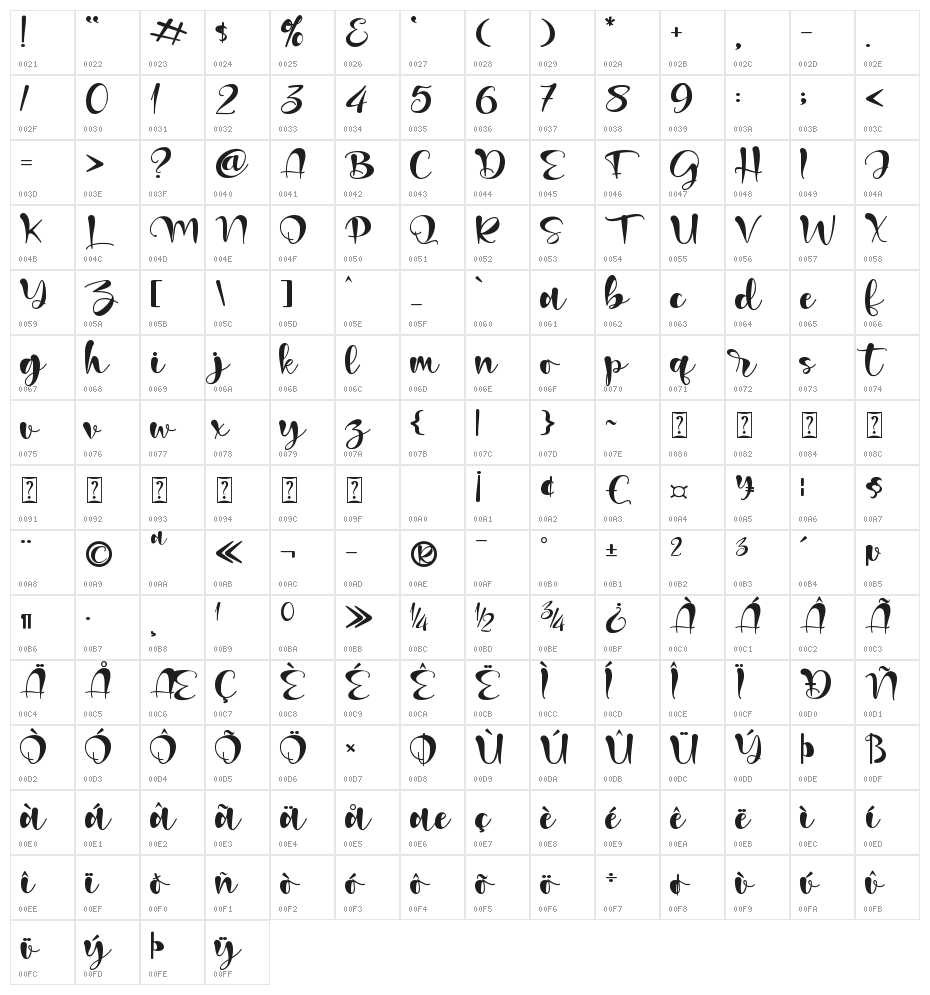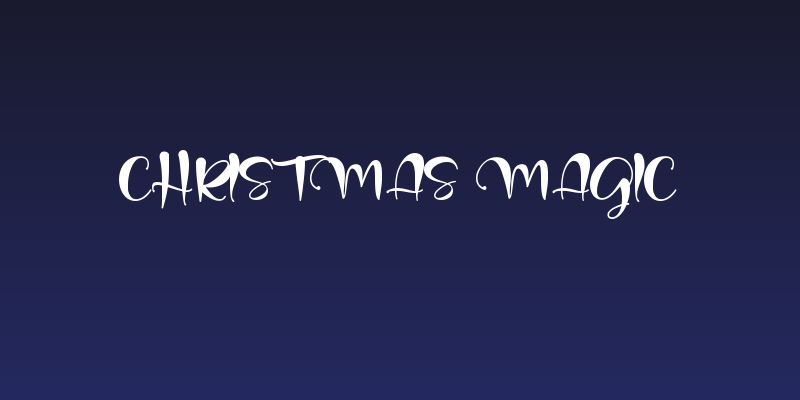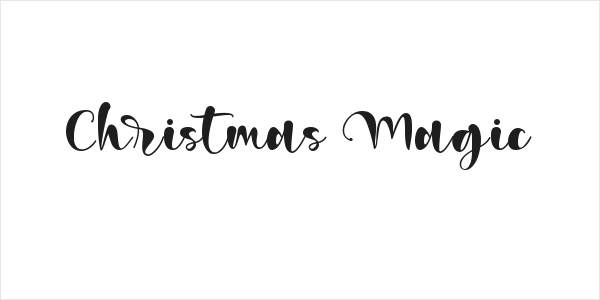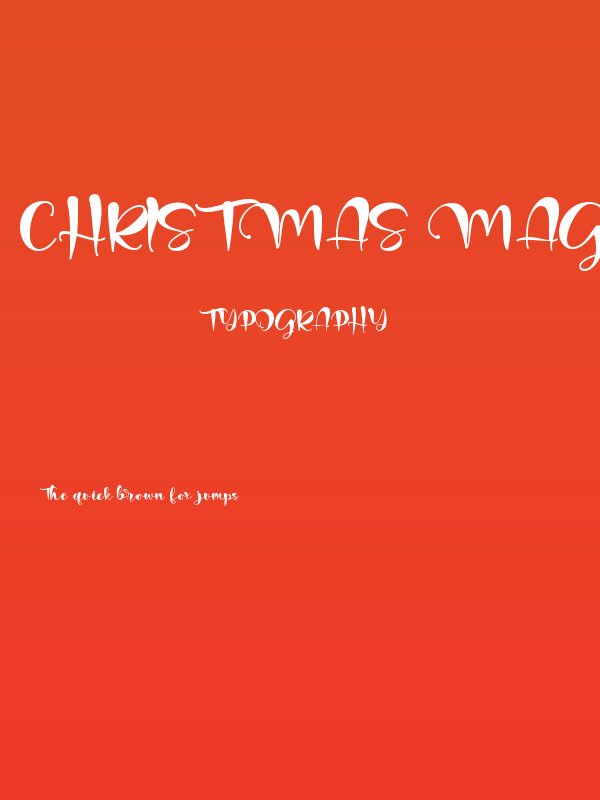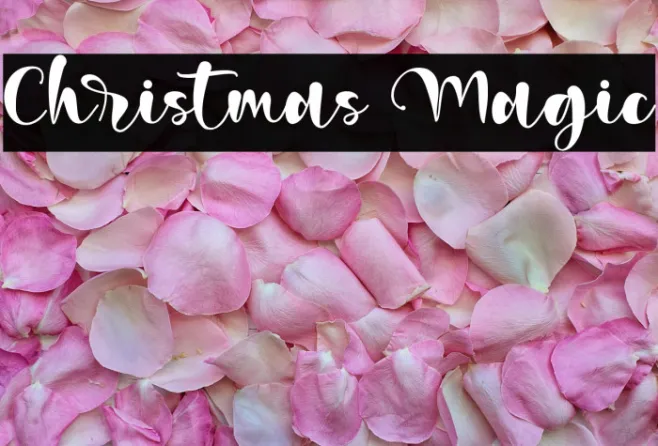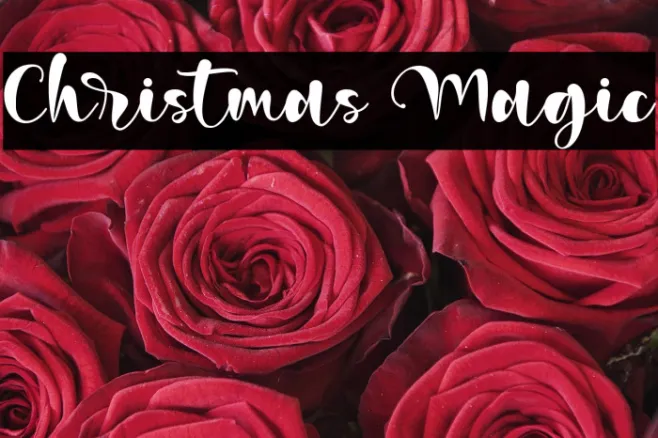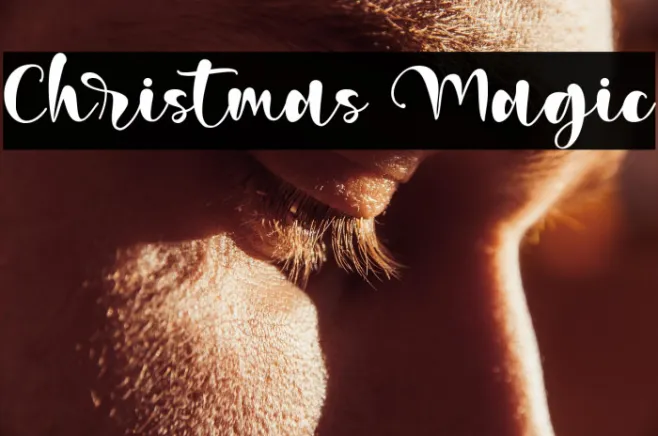
Christmas Magic Font
Christmas Magic Description
This font features a whimsical and festive style, characterized by its flowing, cursive script that evokes a sense of holiday cheer. The letters are elegantly crafted with a playful touch, incorporating swirls and loops that add to its decorative appeal. The uppercase letters are bold and prominent, while the lowercase letters maintain a consistent flow, enhancing readability. Numbers and special characters are designed with the same festive flair, making this font ideal for seasonal projects. Its overall appearance is both joyful and sophisticated, perfect for capturing the magic of the holiday season.
| Proposed Projects | Ideal for holiday cards, festive invitations, seasonal branding, and decorative signage. |